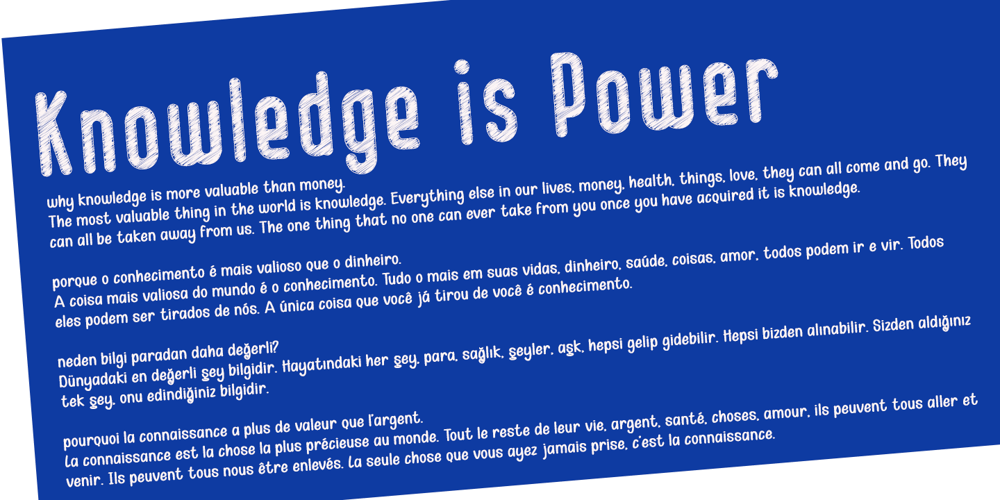
Kid Knowledge Font Family was designed by Muhammad Ridha Agusni and published by 38-lineart. Kid Knowledge contains 4 styles and family package options. Kid Knowledge is a striking family. It includes 5 amazing styles which can be combined perfectly, giving you the opportunity to create multiple unique designs in an instant. It was inspired by children’s science projects and will give a playful touch to your designs.